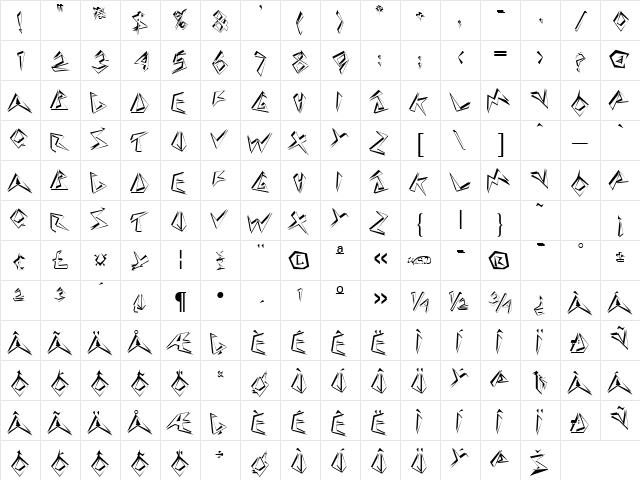
StingerShadow Regular
Design Context for StingerShadow Typeface
StingerShadow brings ornamental detail and strong personality to headlines and identities, where visual impact matters more than quiet functionality.
Font Pairing: Pair with a clean neutral sans-serif for body copy to let StingerShadow's character lead without overwhelming the composition.
Pro Tip: Use StingerShadow exclusively at display sizes — it was designed to be seen, not read at length. Let a neutral companion handle body copy.